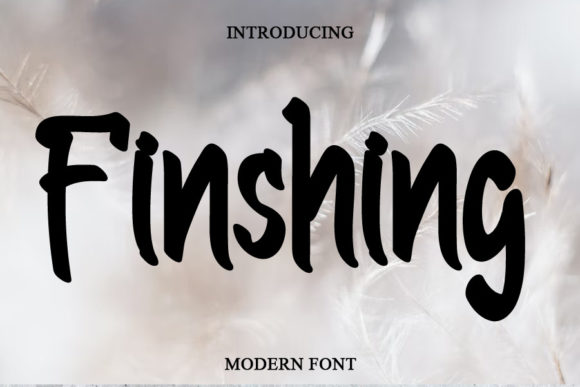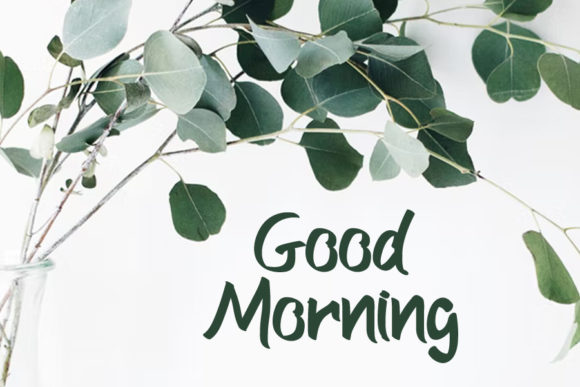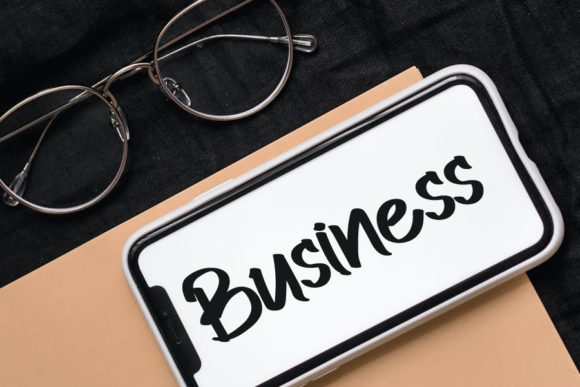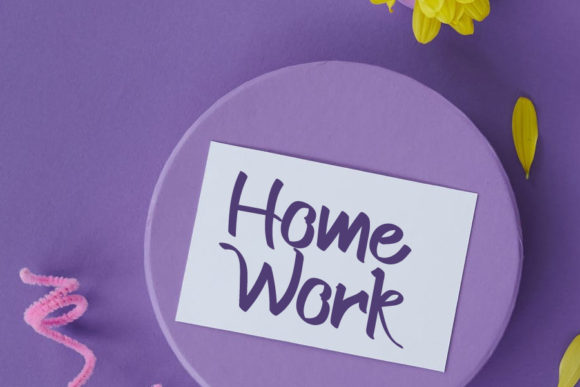
About Finishing Font
Finishing is a meticulously crafted cursive handwritten font designed to bring a sense of elegance and refinement to your design projects. Carefully created with attention to detail, this font is aimed at delivering maximum impact and enhancing the overall aesthetics of your work.
With its graceful and flowing cursive style, Finishing exudes a sense of sophistication that can elevate the visual appeal of various design contexts. Whether you’re working on invitations, branding materials, quotes, or other creative projects, this font’s elegant appearance can seamlessly integrate to create a polished and timeless look.
One of the key strengths of Finishing lies in its versatility. The cursive script design is well-suited for a wide range of applications, allowing you to tailor your designs to different themes while maintaining a consistent level of elegance and class.
The handwritten quality of Finishing adds a personal touch to your text, evoking a sense of authenticity and connection with your audience. Whether you’re aiming for a vintage-inspired design or a modern aesthetic, this font’s adaptability ensures it can effectively convey the desired mood and message.
Finishing’s refined appearance makes it suitable for both digital and print mediums. Whether it’s displayed on screens or incorporated into physical materials, the font maintains its elegance and legibility, ensuring that your designs make a lasting impression.
By incorporating Finishing into your design projects, you can infuse them with a touch of sophistication and elegance. Its careful design and attention to detail reflect a commitment to quality, making it a valuable asset for designers seeking to create impactful and aesthetically pleasing visuals.